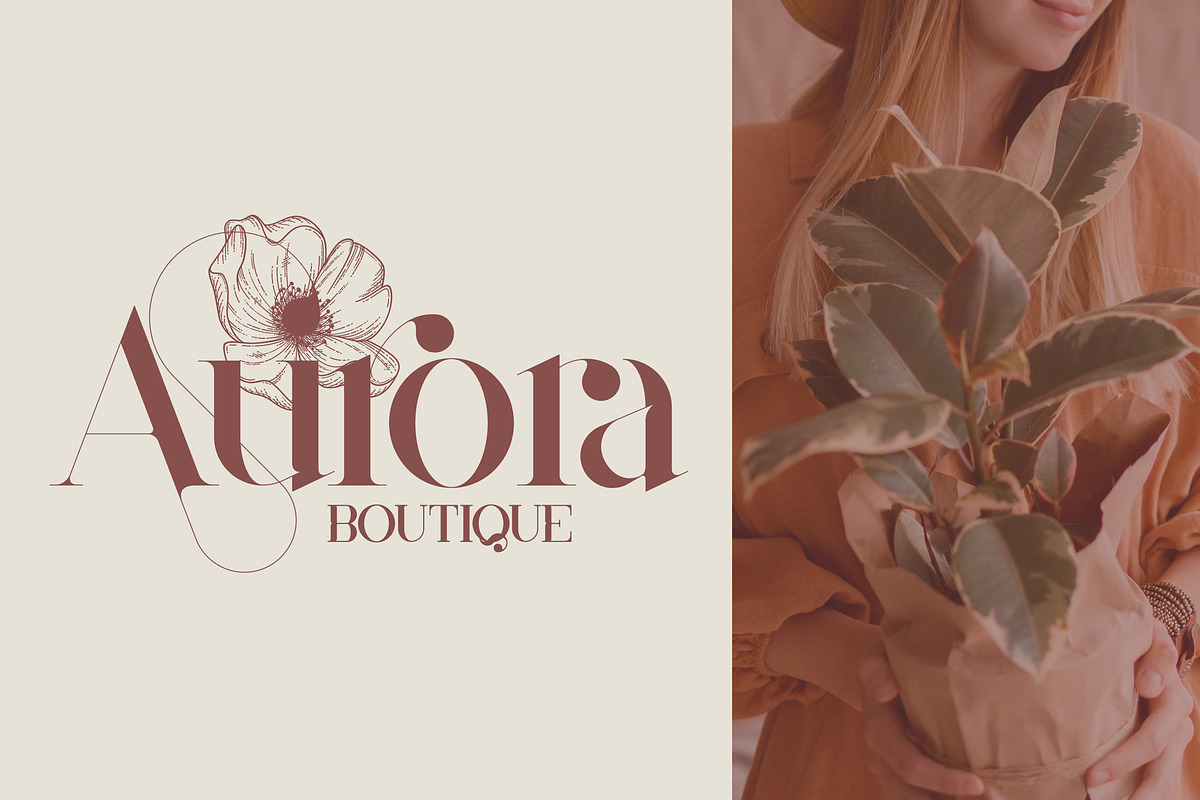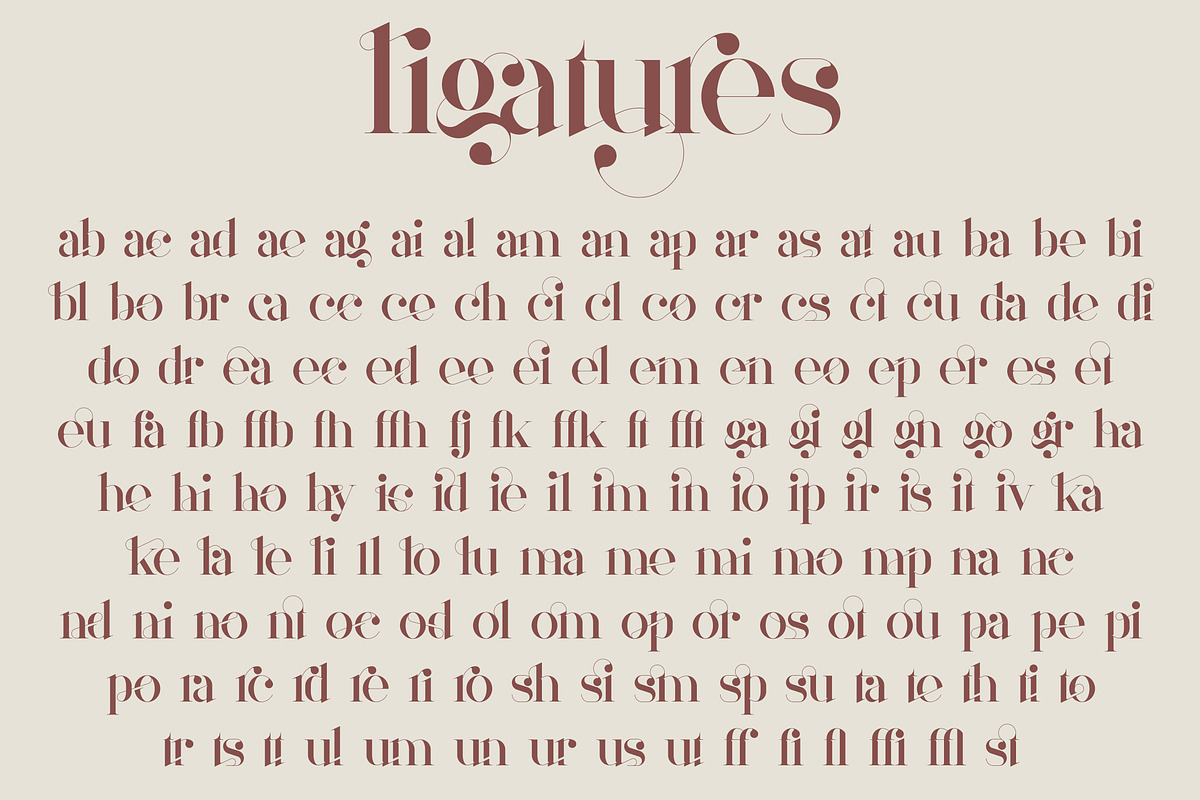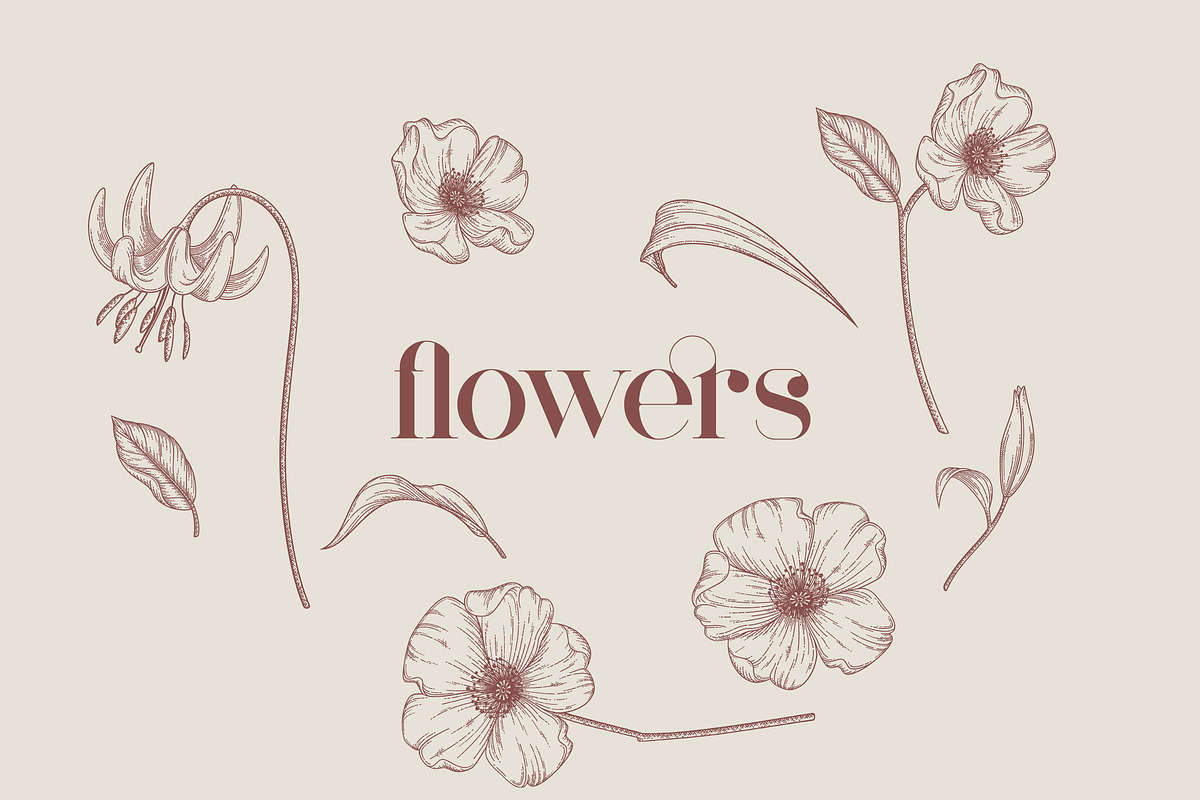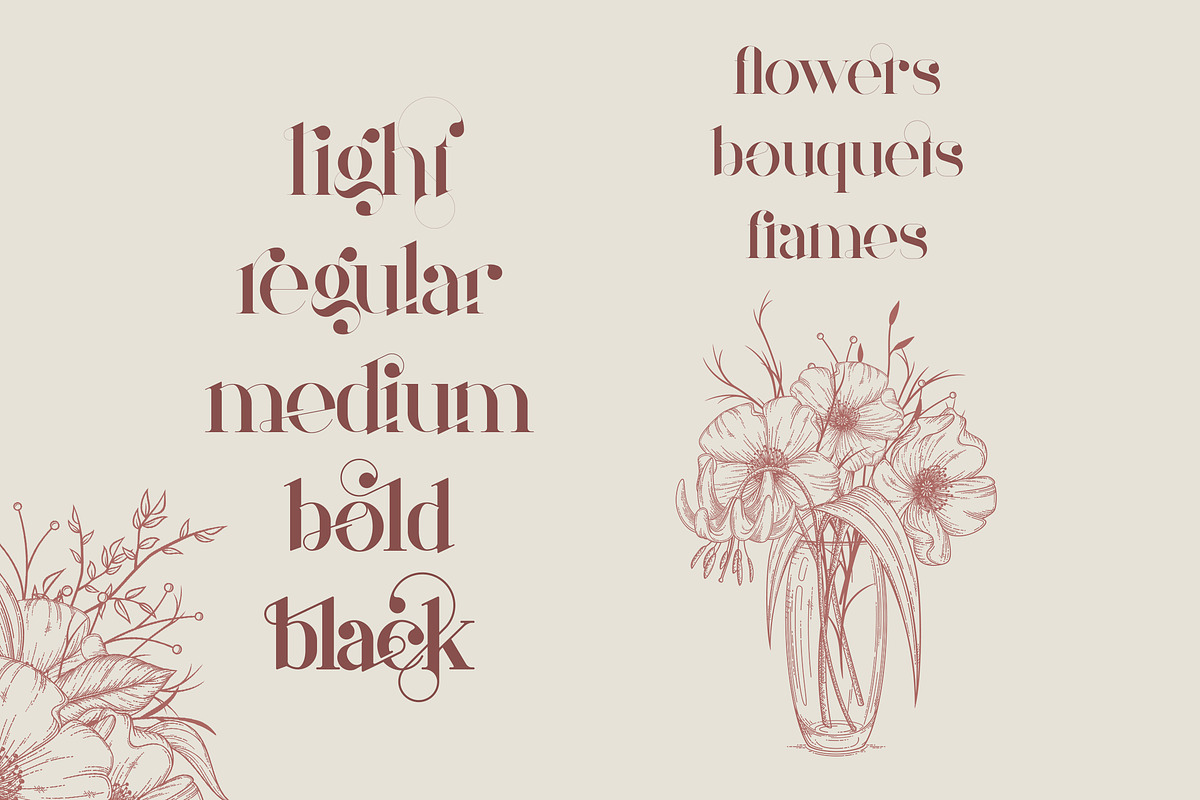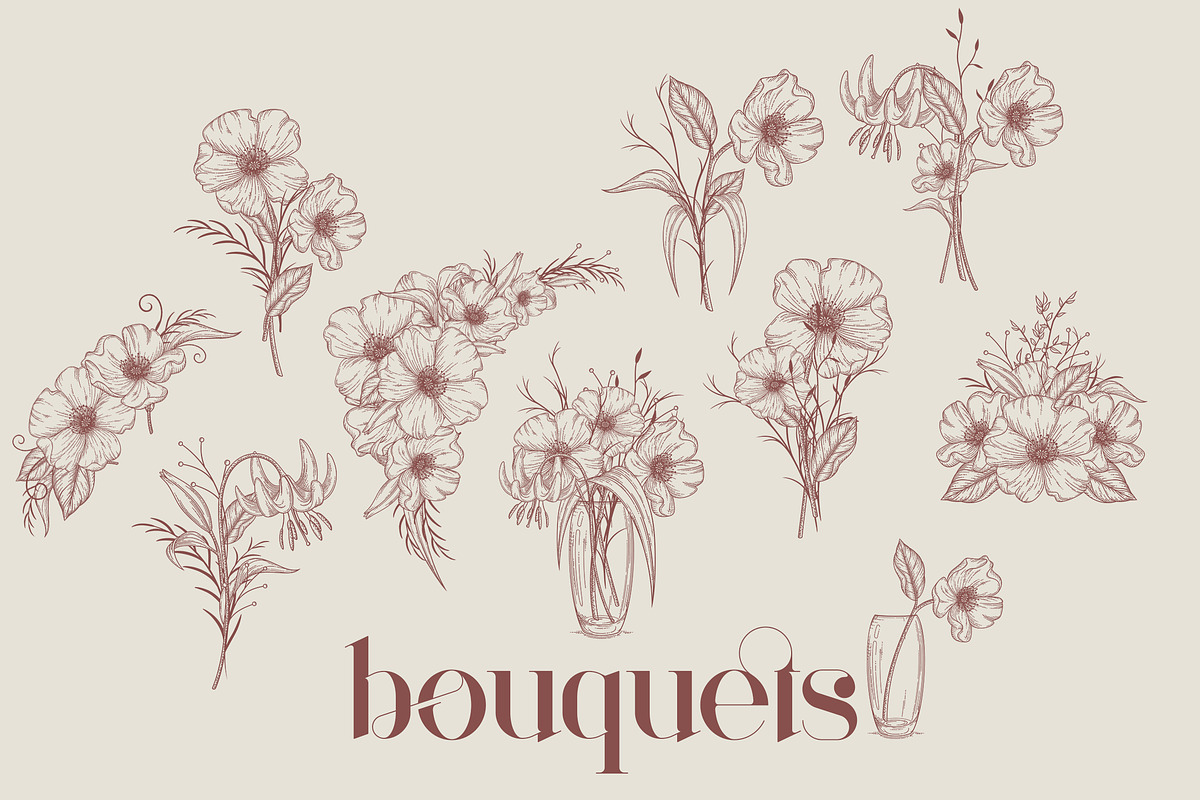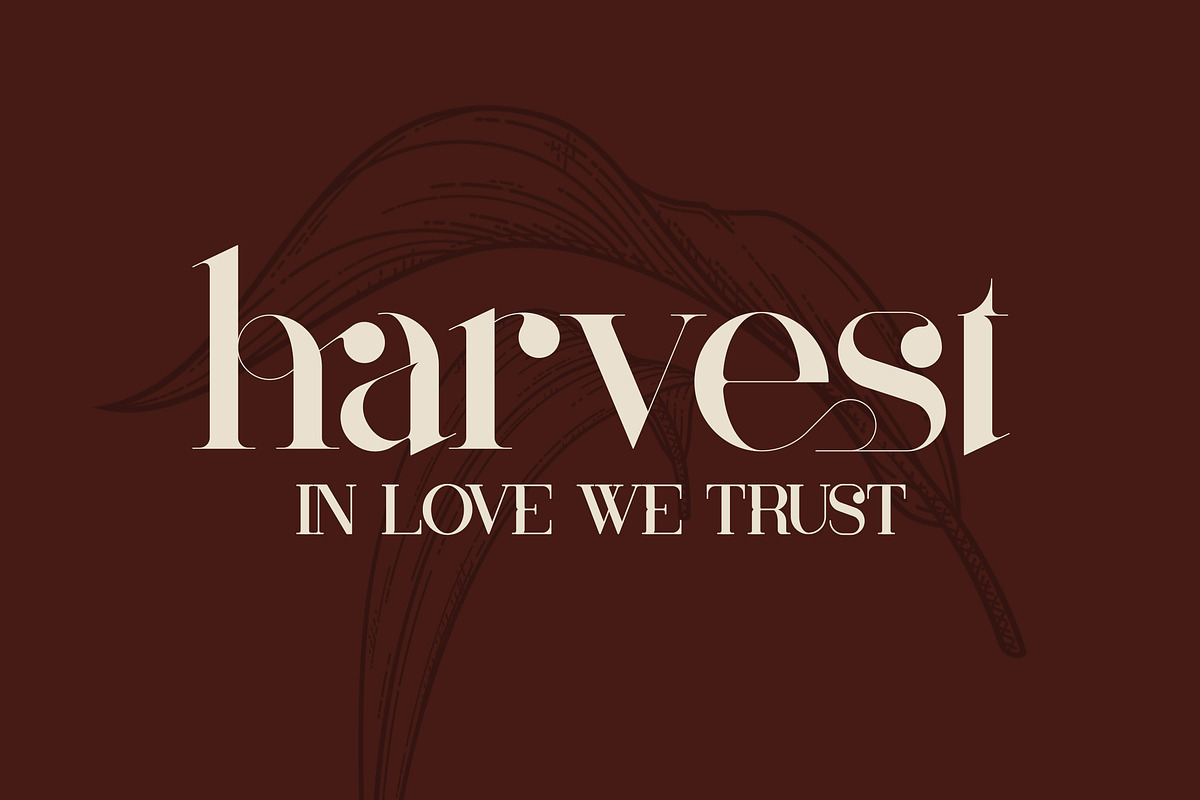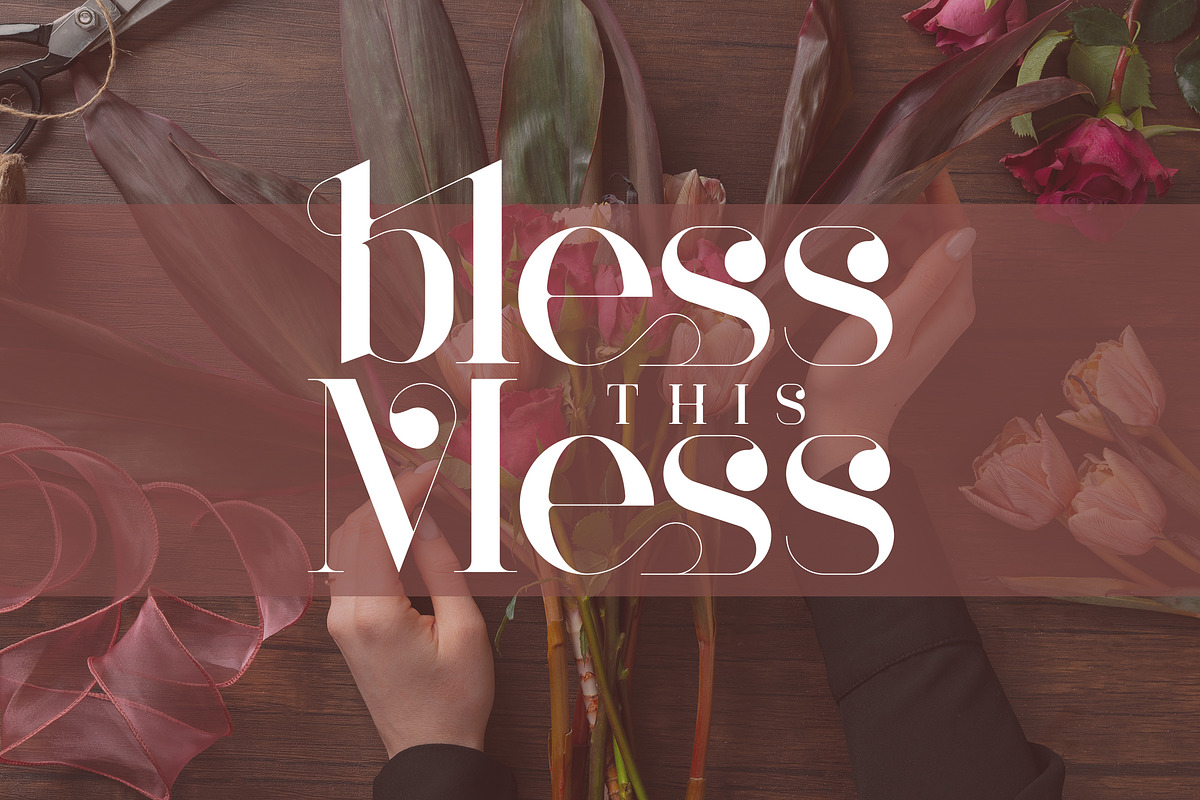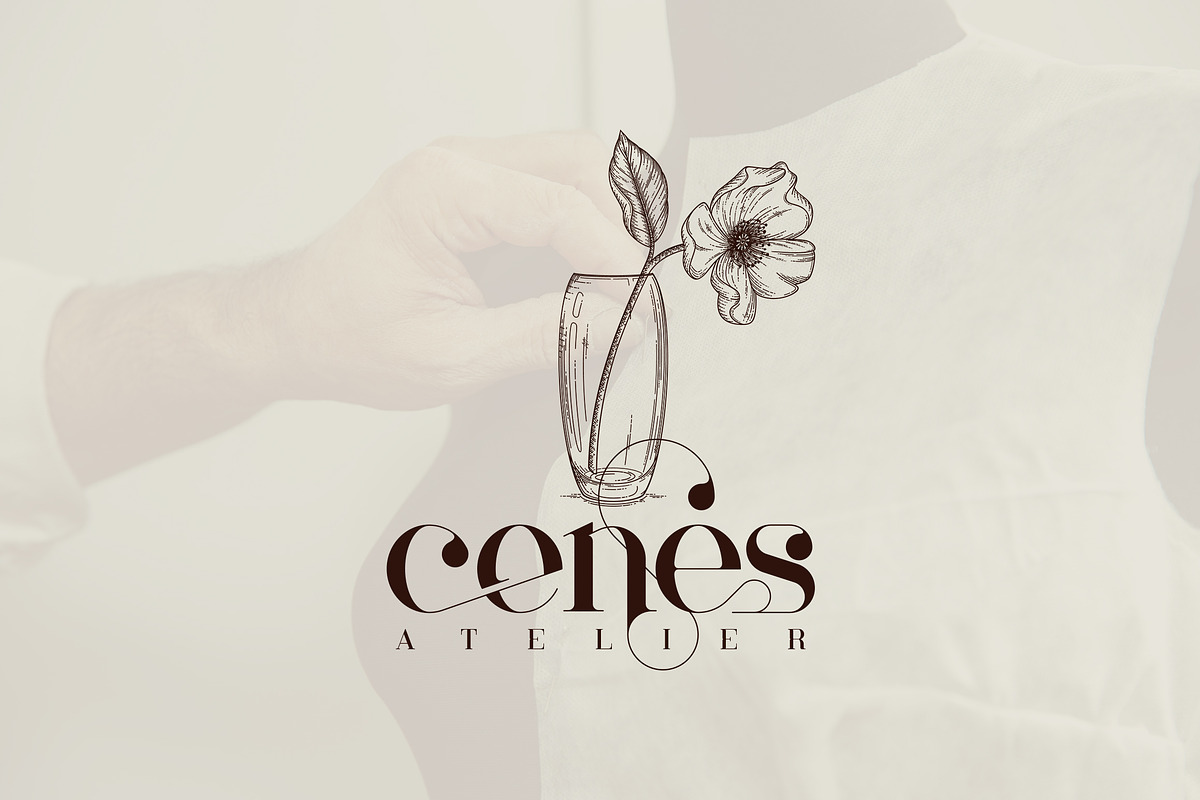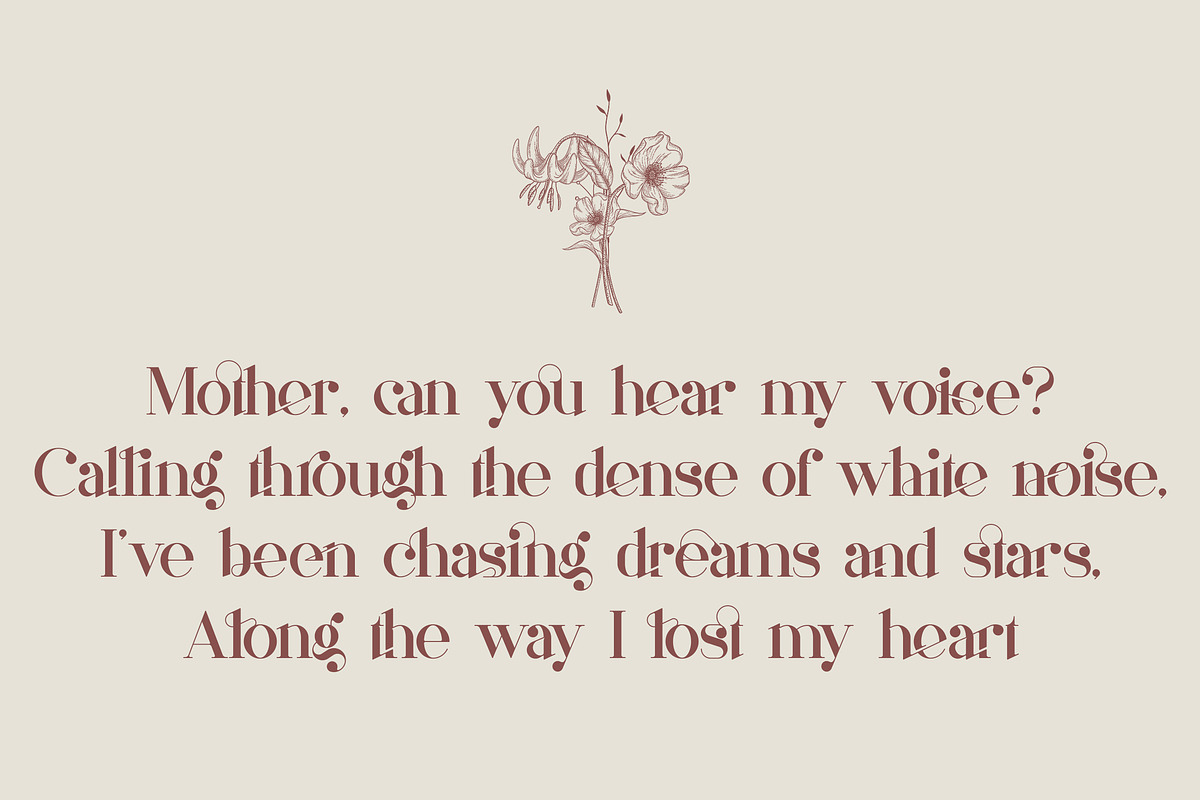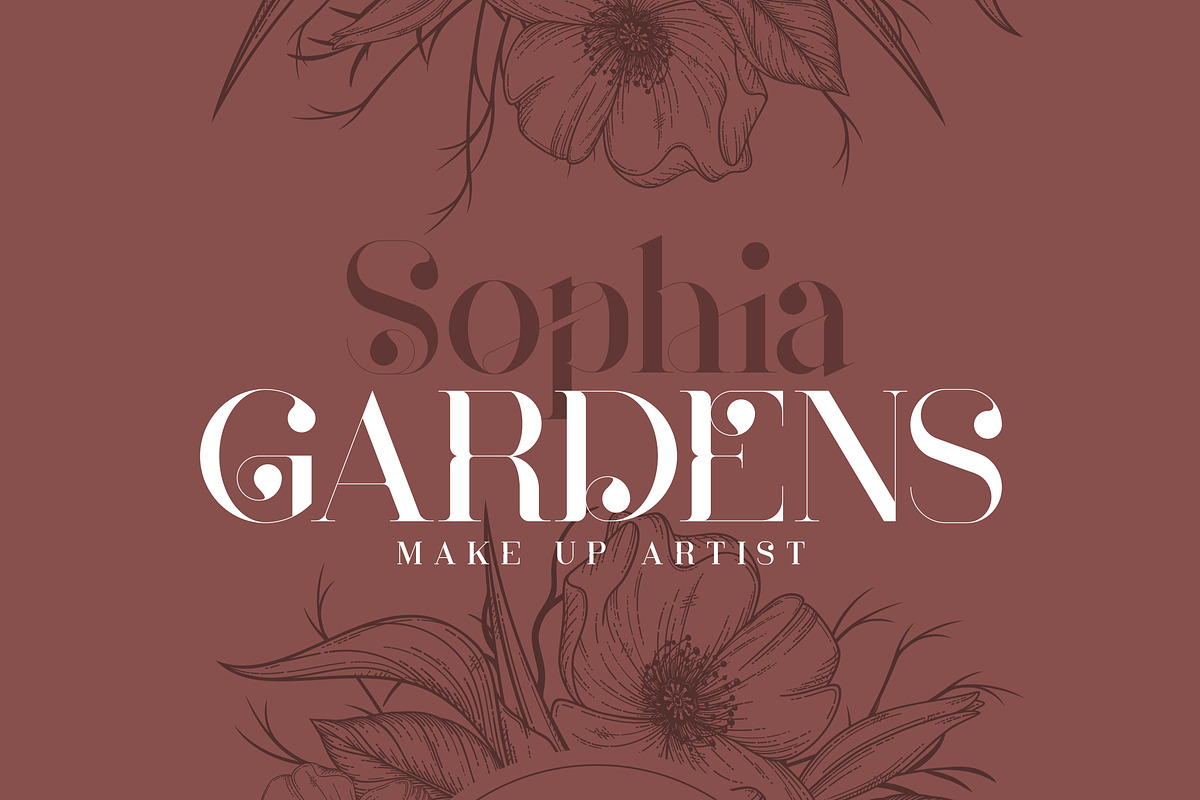
Mother Serif Typeface - 5 weights
Introducing Mother Serif Typeface - 5 fonts + botanical graphics
Mother is named after all the moms and children left behind.
This typeface is feminine, fragile typeface with 5 fonts loaded with ligature glyphs, alternates and multilingual support to enchant your next project. Added and frames, bouquets and floral elements. Very versatile fonts that works great in large and small sizes.
Mother is perfect for branding projects, home-ware designs, product packaging, magazine headers - or simply as a stylish text overlay to any background image.
Uppercase, lowercase, numeral, punctuation & Symbol
Light
Medium
Bold
Black
ligature glyphs ab ac ad ae ag ai al am an ap ar as at au ba be bi bl bo br ca cc ce ch ci cl co cr cs ct cu da de di do dr ea ec ed ee ei el em en eo ep er es et eu fa fb ffb fh ffh fj fk ffk ft fft ga gi gl gn go gr ha he hi ho hy ic id ie il im in io ip ir is it iv ka ke la le li ll lo lu ma me mi mo mp na nc nd ni no nt oc od ol om op or os ot ou pa pe pi po ra rc rd re ri ro sh si sm sp su ta te th ti to tr ts tt ul um un ur us ut ff fi fl ffi ffl st
alternates